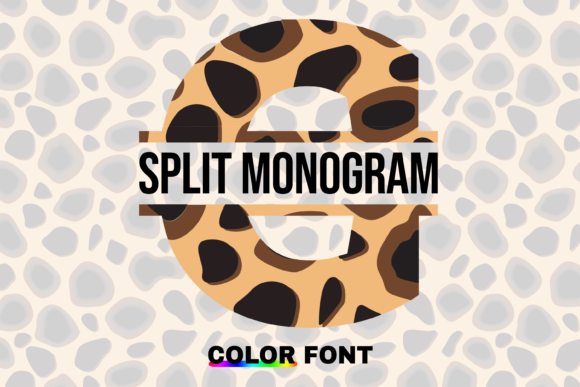
The Perfect Purr-fect Font for Your Next Project
Remember the thrill of discovering that perfect font for your next design project? It’s like stumbling upon a hidden treasure, isn’t it? You’re browsing through a vast collection of fonts, and suddenly, one catches your eye – its quirky style, playful vibe, and adorable details make you go weak in the knees. For designers, finding the right font can be the difference between a good design and a great one.
Enter Cheetah Split Font, a delightful addition to any design arsenal. This charming font is bursting with cute Cheetah elements, making it a perfect fit for custom designs, DIY crafts, and any project that requires a touch of whimsy. With its compatibility with PhotoShop, Illustrator, Silhouette, and Inkscape, Cheetah Split Font is a valuable tool for designers looking to add a unique twist to their creations.
Cheetah Split Font Key Features
- Unique Characteristics: Dual-axis split design, with each axis featuring a unique cheetah-inspired pattern, creating a visually striking effect when combined.
- Font Style: Display, Sans-Serif, with multiple weights and styles available (Thin, Light, Regular, Medium, Bold, Heavy)
- Language Support: Supports multiple languages, including Latin, Cyrillic, and Greek scripts, with extensive language coverage.
Cheetah Split Font Review
The Cheetah Split Font is a unique and stylish addition to any design project. Here’s what works well:
- ✨ Versatility: The font can be used for both digital and print projects, making it a great all-around choice.
- ✨ Versatile styles: The font comes in a range of styles, from bold to light, making it easy to find the perfect fit for your project.
- ✨ Clean lines: The font’s clean lines and modern aesthetic make it perfect for minimalist designs.
- ⚠️ Limited language support: The font may not support all languages, which could be a problem for multilingual projects.
- ⚠️ Limited customization options: While the font comes in different styles, it may be difficult to customize it further to fit your specific needs.
Overall, I think the Cheetah Split Font is a solid choice for designers looking for a modern and versatile font. While it may have some limitations, its clean lines and range of styles make it a great addition to any design project.
Cheetah Split Font: A Practical Application Guide
The Cheetah Split Font is ideal for creating eye-catching headings, titles, and logos. It can also be used to add a touch of elegance to invitations, business cards, and other marketing materials.
To get the most out of the Cheetah Split Font, experiment with different font sizes, colors, and text alignments. You can also combine it with other fonts to create a unique and visually appealing design.